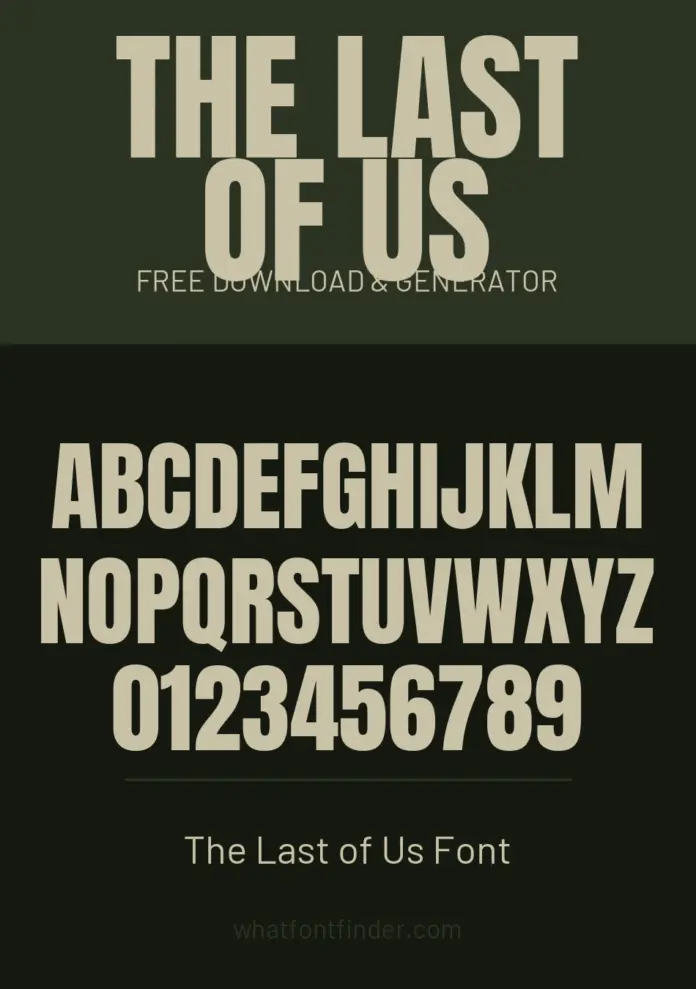
The Last of Us Font Generator
What font is The Last of Us logo?
The title uses Press Gothic — an ultra-condensed grotesque with deliberately eroded edges, which is where the weathered quality comes from. It is a commercial release, so there is no free version of the font itself.
It is worth correcting a common mistake here: this is a condensed sans, not a distressed serif. A lot of “Last of Us font” lists offer worn-looking serifs that share the mood and none of the shapes.
The fonts here
- Anton is a heavy condensed sans and the closest free match for the proportions — very tall, very tight, built for headlines.
- League Gothic is lighter and narrower, closer to classic condensed grotesques. Being variable, its width axis lets you tune how compressed the title sits.
Adding the weathering
The erosion in the logo is a texture applied on top of the type, not part of any font, which is why a clean condensed sans looks close but not finished. It is also the easiest part to add yourself: set the word, then mask it with a grain or concrete texture so the damage bites into the edges rather than sitting over the face like a filter.
Keep the damage uneven. Real wear concentrates on corners and the tops of strokes, so weathering that is spread uniformly across the letters reads as an effect rather than as age.
Why condensed, and why it matters
A condensed grotesque puts more letters in less width without dropping the weight, which is why it dominates film posters and game covers — a long title still fills the space and stays legible small. If your text is short, the effect is weaker, and widening the tracking slightly will keep it from looking cramped.
Is this the exact font used for The Last of Us?
Not exactly. The original lettering was custom drawn or is not publicly licensed, so the fonts here are close recreations. Anton is the nearest match we have found.